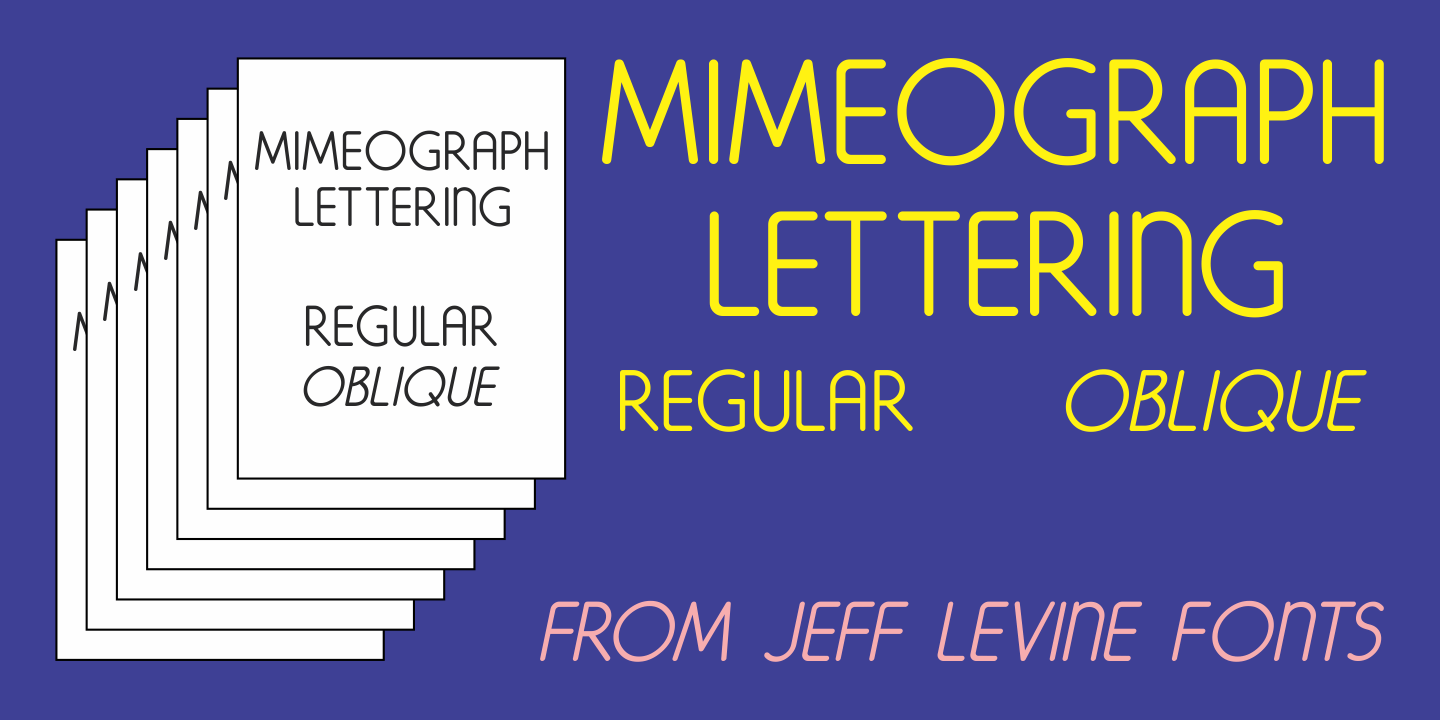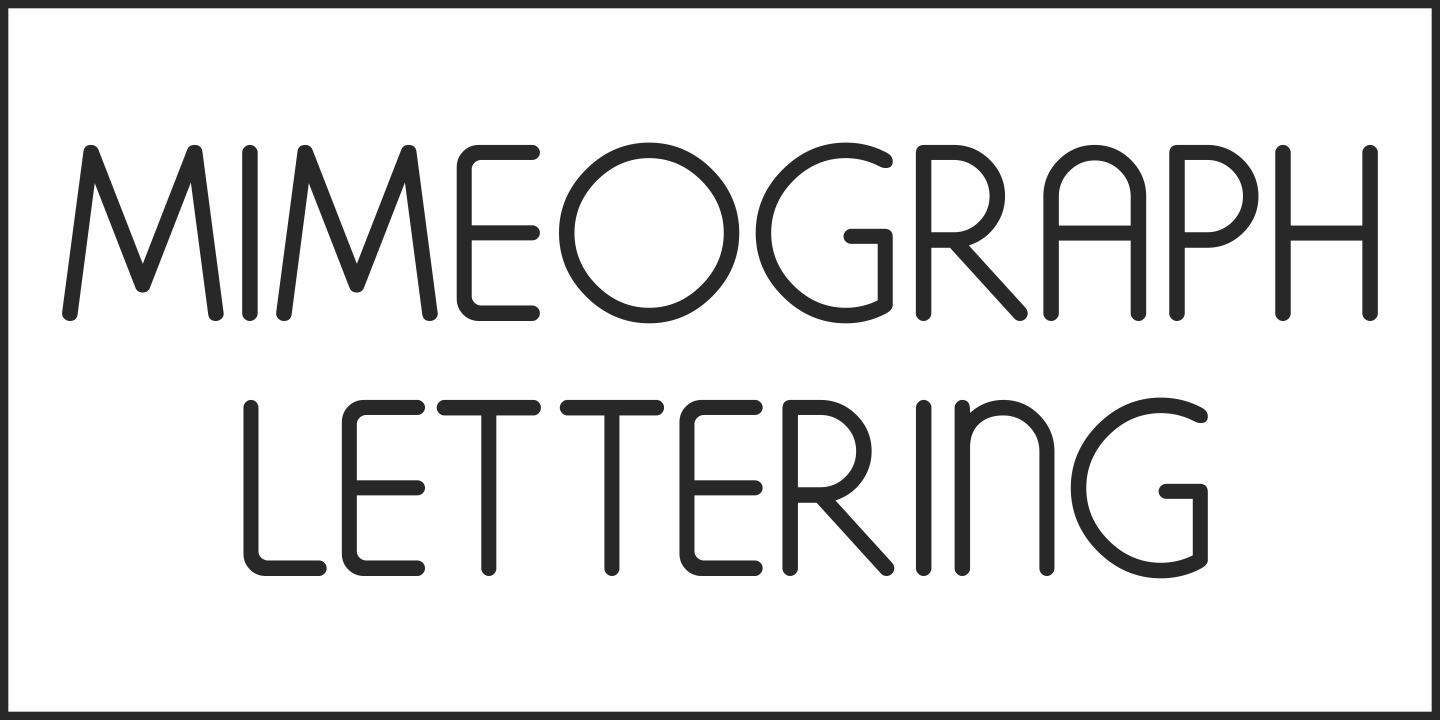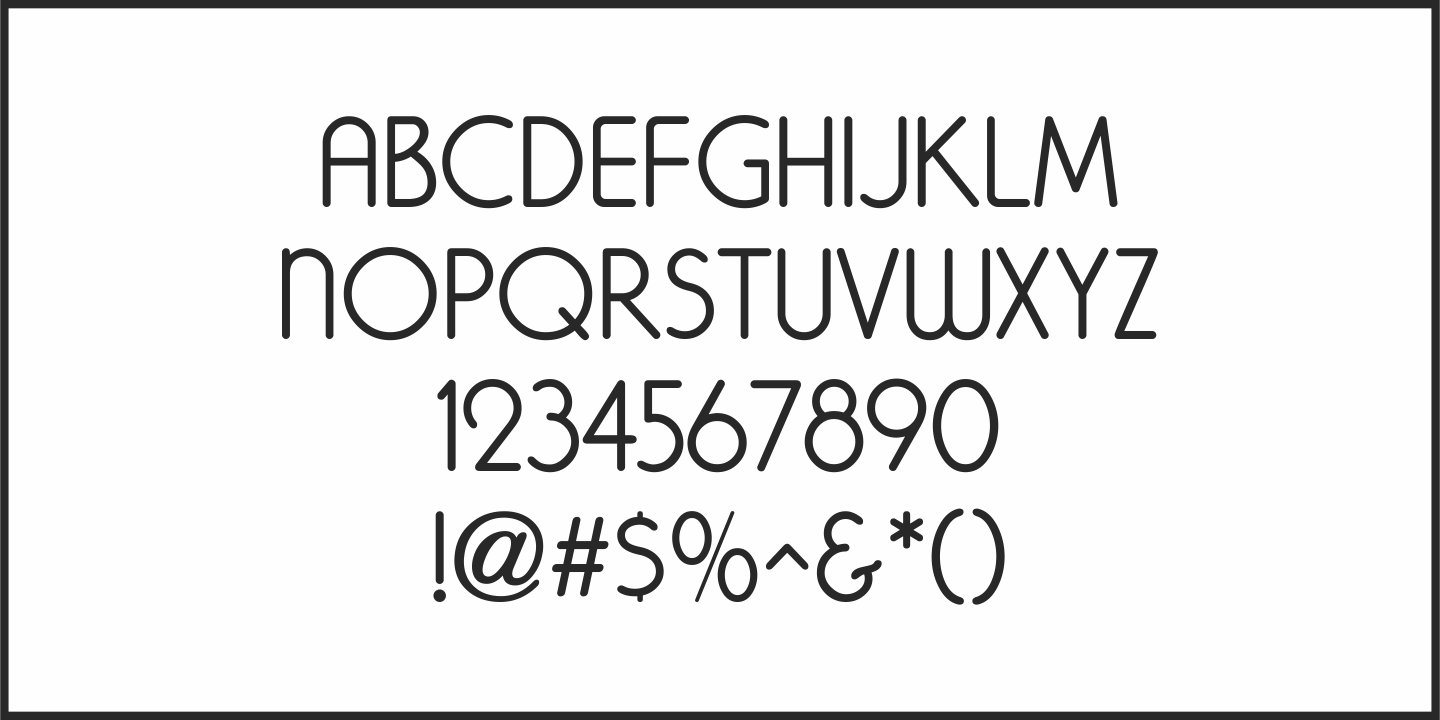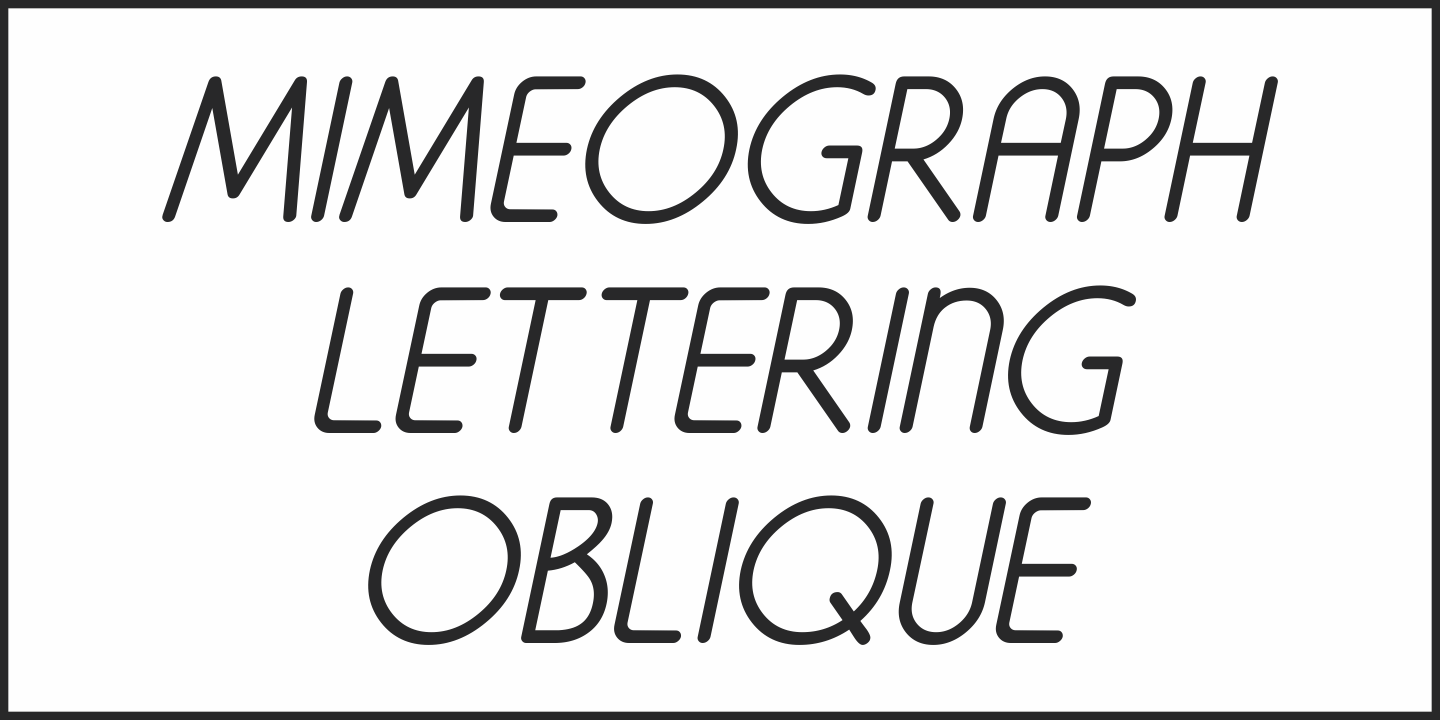
Mimeograph Lettering
Mimeograph Lettering JNL is based on one of the numerous plastic lettering templates once manufactured by the A.B. Dick Company of Chicago and is available in both regular and oblique versions.
The mimeograph utilized a porous drum which inked the backside of a waxed stencil sheet. Unlike traditional stencils which have cut out areas that are directly inked or painted, a mimeo stencil has the area to be printed scratched away by removing the wax coating with a stylus.
The resulting image allows the ink from the drum to seep through the sheet and transfer to the blank paper.
As with a companion font (Mimeograph Template JNL), the character shapes follow the routed letters of the template, complete with rounded terminals. A previous font release [designed with flat terminals and some alternate characters] is available as Interoffice Memo JNL.